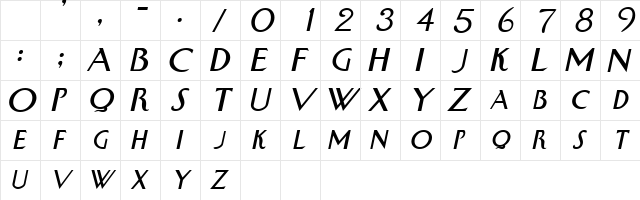
Swan Italic
Design Context for Swan Typeface
Swan is a composed and adaptable typeface that performs quietly and consistently across a wide range of design contexts. The dynamic lean of this cut emphasises speed and emphasis in any layout.
Pro Tip: Try Swan for annotation and caption copy alongside an upright companion — the contrast in angle creates a dynamic but ordered typographic system.